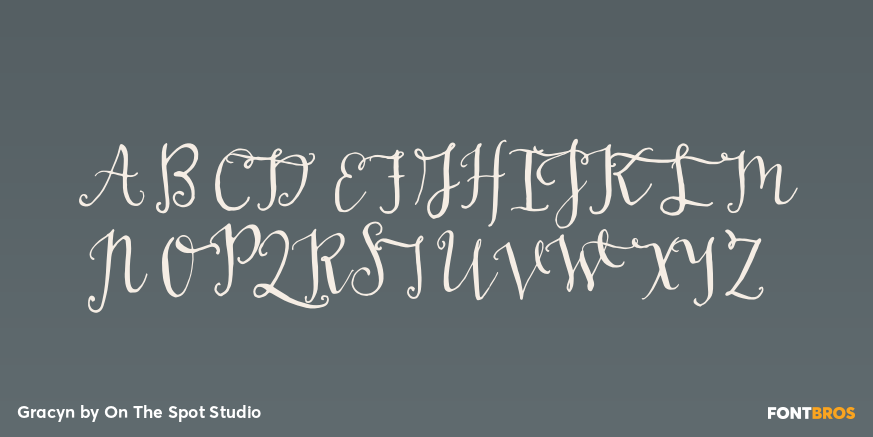
Gracyn
Font Family by On The Spot Studio
A pretty, playful calligraphy script. Uppercase and lowercase only (no punctuation or numbers), with a few extras like alternate letters available via the Glyphs panel in Illustrator or similar software.